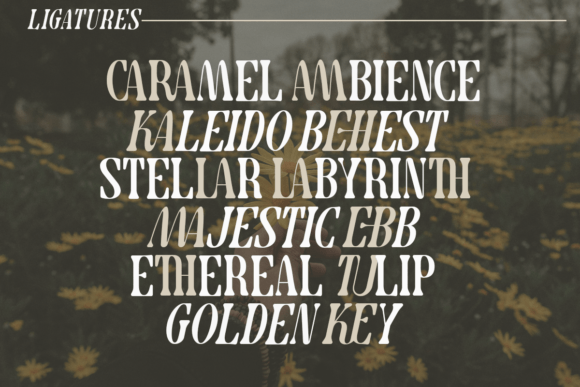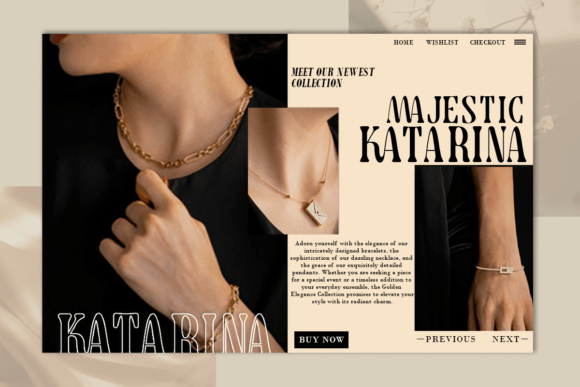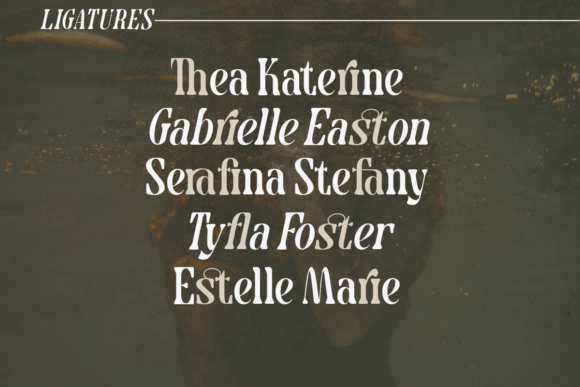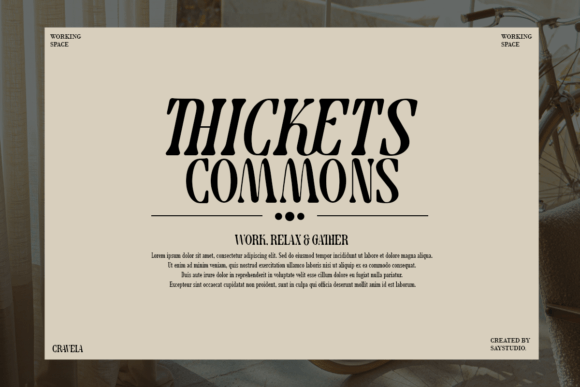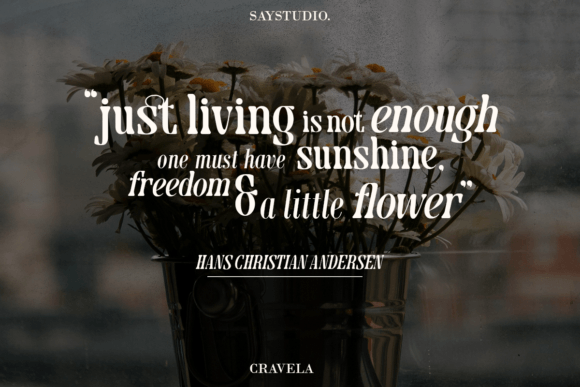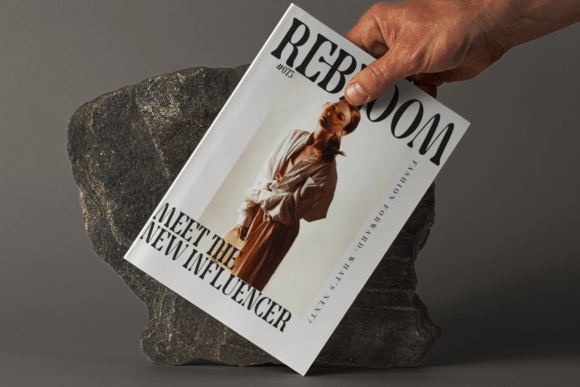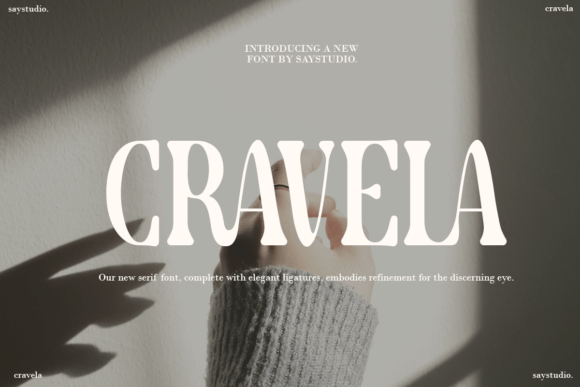
Cravela Font: The Perfect Cozy Modern Serif Font for Your Graphic Design Projects
Are you looking for a font that exudes luxury, class, and modernity all at once? Look no further than Cravela, the perfect cozy modern serif font. This fantastic font is a must-have for any graphic designer, and its versatility makes it suitable for a wide range of projects. In this article, we’ll dive into the features and benefits of Cravela, and explore why it’s a timeless addition to your font collection.
A Modern Serif Font with a Timeless Appeal
Cravela is a beautifully crafted modern serif font that boasts a unique blend of luxury, class, and modernity. Its elegant and refined design makes it perfect for creating stunning logos, wedding designs, and other commercial projects. The font comes in two variations: Regular and Italic, allowing you to add a touch of sophistication and elegance to your designs.
Key Features of Cravela Font
- Modern Serif Design: Cravela’s modern serif design makes it perfect for creating visually stunning designs that exude luxury and sophistication.
- Two Font Variations: The font comes in two variations: Regular and Italic, giving you flexibility and versatility in your designs.
- Optional Ligatures: Cravela features optional ligatures of class and high fashion, allowing you to add a touch of elegance and refinement to your designs.
- Scalable: The font can be scaled to a variety of sizes, making it perfect for use in a range of projects, from business cards to billboards.
Why Choose Cravela Font?
So, why should you choose Cravela font for your next graphic design project? Here are just a few reasons:
- Timeless Design: Cravela’s design is timeless and classic, making it a great investment for any graphic designer.
- Versatility: The font is versatile and can be used in a wide range of projects, from logos and branding to wedding designs and commercial projects.
- Elegance and Sophistication: Cravela exudes elegance and sophistication, making it perfect for creating high-end designs.
How to Use Cravela Font in Your Designs
Using Cravela font in your designs is easy. Here are a few tips to get you started:
- Pair it with Other Fonts: Cravela can be paired with other fonts to create stunning contrast and visual interest.
- Use it for Headings and Titles: The font is perfect for use in headings and titles, where its elegance and sophistication can really shine.
- Experiment with Ligatures: Cravela’s optional ligatures are a great way to add a touch of elegance and refinement to your designs.
In conclusion, Cravela font is a must-have for any graphic designer looking to create stunning, high-end designs. Its timeless design, versatility, and elegance make it perfect for a wide range of projects. With its optional ligatures, two font variations, and scalable design, Cravela is the perfect addition to your font collection. So why wait? Start designing with Cravela today and take your graphic design projects to the next level!